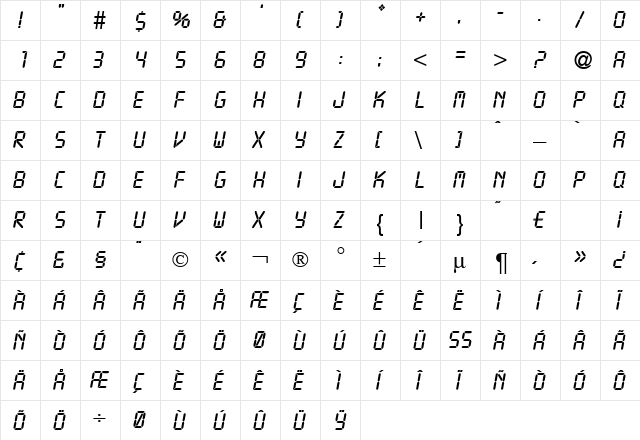
DigitalDB Italic
Design Context for DigitalDB Typeface
DigitalDB has a distinctly futuristic character, with geometric precision and clean angles that feel at home in technology, gaming, and sci-fi contexts. The slanted form adds forward momentum and visual energy.
Pro Tip: Use DigitalDB in combination with a neutral sans for body text. Let it define the brand voice in headlines while keeping reading comfortable elsewhere.